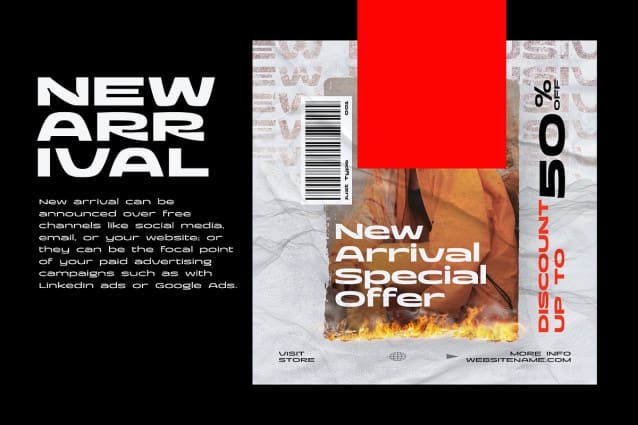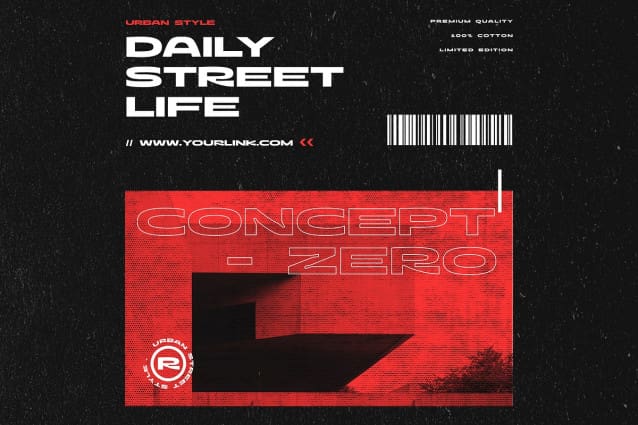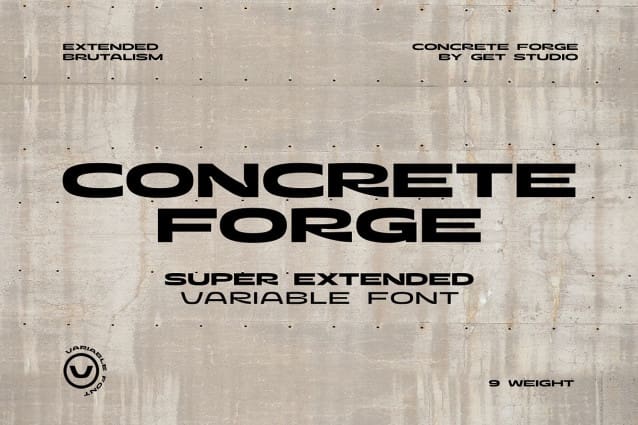
Concrete Forge Font
Concrete Forge Font: A fearless brutalist font with extended shapes, exuding strength, and resilience. Captivating and impactful, it embraces simplicity while making a bold statement for branding and design projects.
Inspired by the raw aesthetics of brutalist architecture, this typeface exudes strength and confidence. Its characters feature robust, and sharp angles, reminiscent of the solidity and resilience of concrete structures.